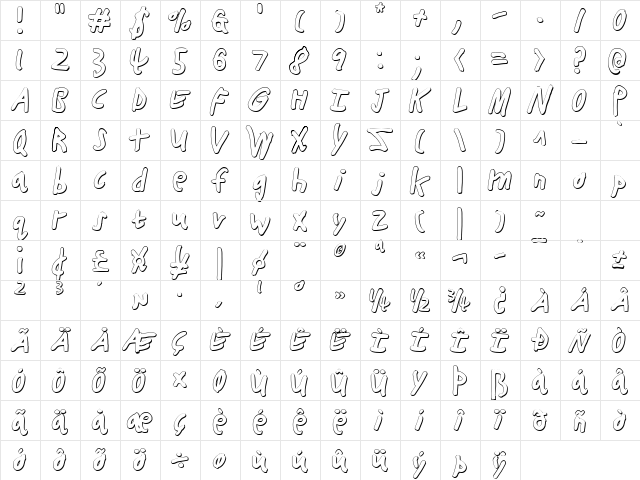
Buttons the Bear 3D Regular
Design Context for Buttons the Bear 3D
Buttons the Bear 3D is a composed and adaptable typeface that performs quietly and consistently across a wide range of design contexts.
Pro Tip: Use Buttons the Bear 3D in both headline and body roles to test its range before committing to a single application.